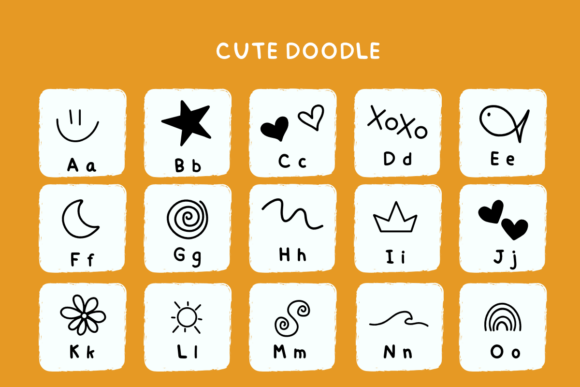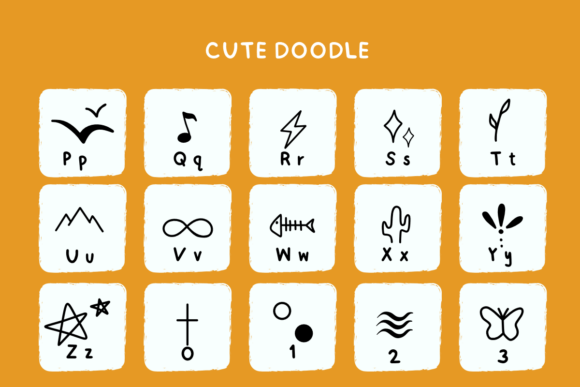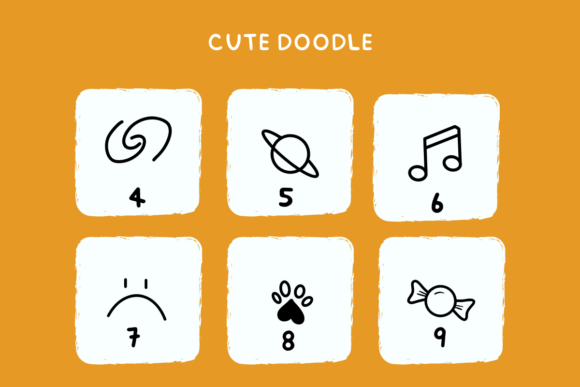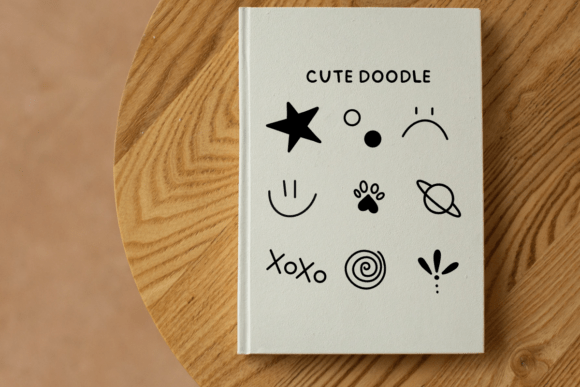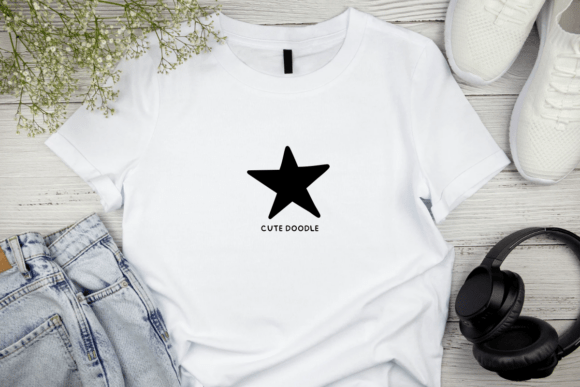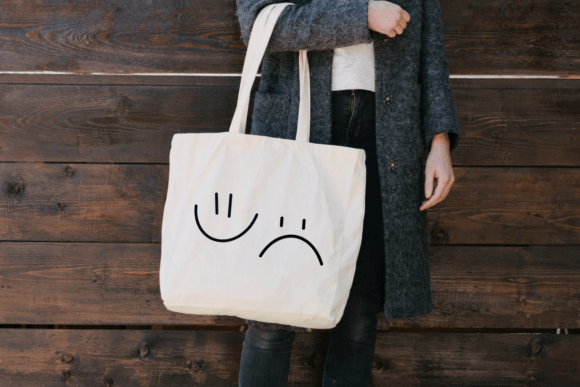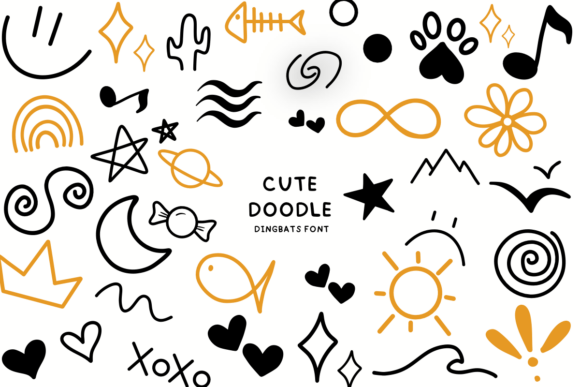
Cute Doodle Font: Add a Dash of Whimsy to Your Designs
Are you looking for a font that can add a touch of fun and charm to your designs? Look no further than the Cute Doodle font! This lively dingbats font features hand-drawn icons that are perfect for creating playful and engaging designs. In this article, we’ll take a closer look at the Cute Doodle font, its features, and how you can use it to add a dash of whimsy to your designs.
What is Cute Doodle Font?
Cute Doodle is a dingbats font that features a collection of hand-drawn icons, including hearts, stars, rainbows, suns, and more. The font is designed to be fun and playful, making it perfect for designs that need a touch of whimsy. The icons are carefully crafted to be unique and charming, adding a personal touch to any design.
Features of Cute Doodle Font
The Cute Doodle font comes with a range of features that make it ideal for designers and crafters. Some of the key features include:
• Hand-drawn icons: Each icon in the Cute Doodle font is carefully hand-drawn, giving the font a personal and unique touch.
• Fun and playful: The font features a range of fun and playful icons, including hearts, stars, and rainbows.
• Versatile: The Cute Doodle font can be used for a range of designs, from planners and kids’ crafts to social media stickers and more.
Uses for Cute Doodle Font
The Cute Doodle font is incredibly versatile, and can be used for a range of designs. Here are some ideas to get you started:
• Planners and organizers: Add a touch of fun and personality to your planners and organizers with the Cute Doodle font.
• Kids’ crafts: The font is perfect for kids’ crafts, including coloring pages, activity sheets, and more.
• Social media stickers: Use the Cute Doodle font to create fun and engaging social media stickers.
• Stationery and greeting cards: Add a touch of whimsy to your stationery and greeting cards with the Cute Doodle font.
Tips for Using Cute Doodle Font
Here are some tips for getting the most out of the Cute Doodle font:
• Experiment with different colors: The Cute Doodle font looks great in a range of colors, so don’t be afraid to experiment and find the perfect color for your design.
• Mix and match icons: The font features a range of icons, so try mixing and matching them to create a unique design.
• Use it with other fonts: The Cute Doodle font pairs well with other fonts, so try using it with a bold font for a fun and playful look.
The Cute Doodle font is a fun and playful dingbats font that is perfect for designers and crafters looking to add a touch of whimsy to their designs. With its hand-drawn icons and versatile design, it’s ideal for a range of projects, from planners and kids’ crafts to social media stickers and more. Whether you’re a seasoned designer or just starting out, the Cute Doodle font is a great addition to your font collection.